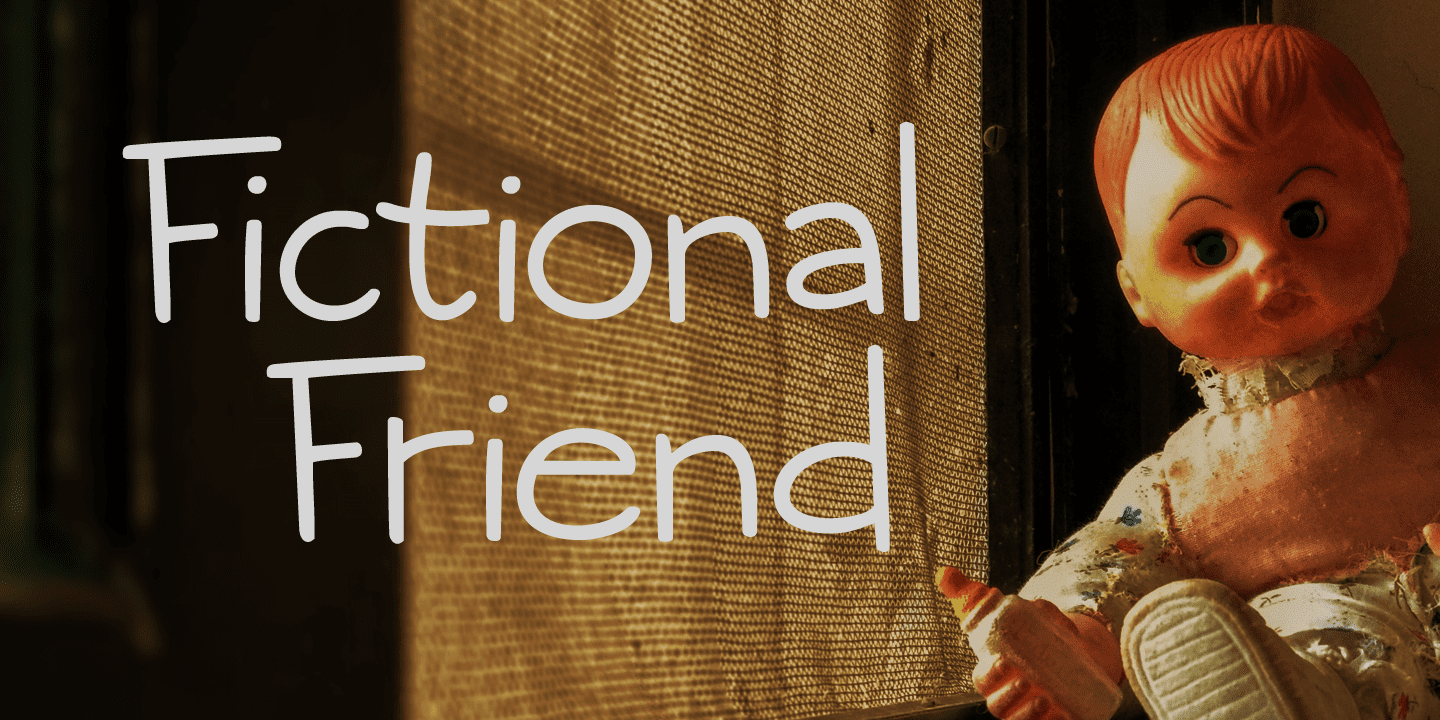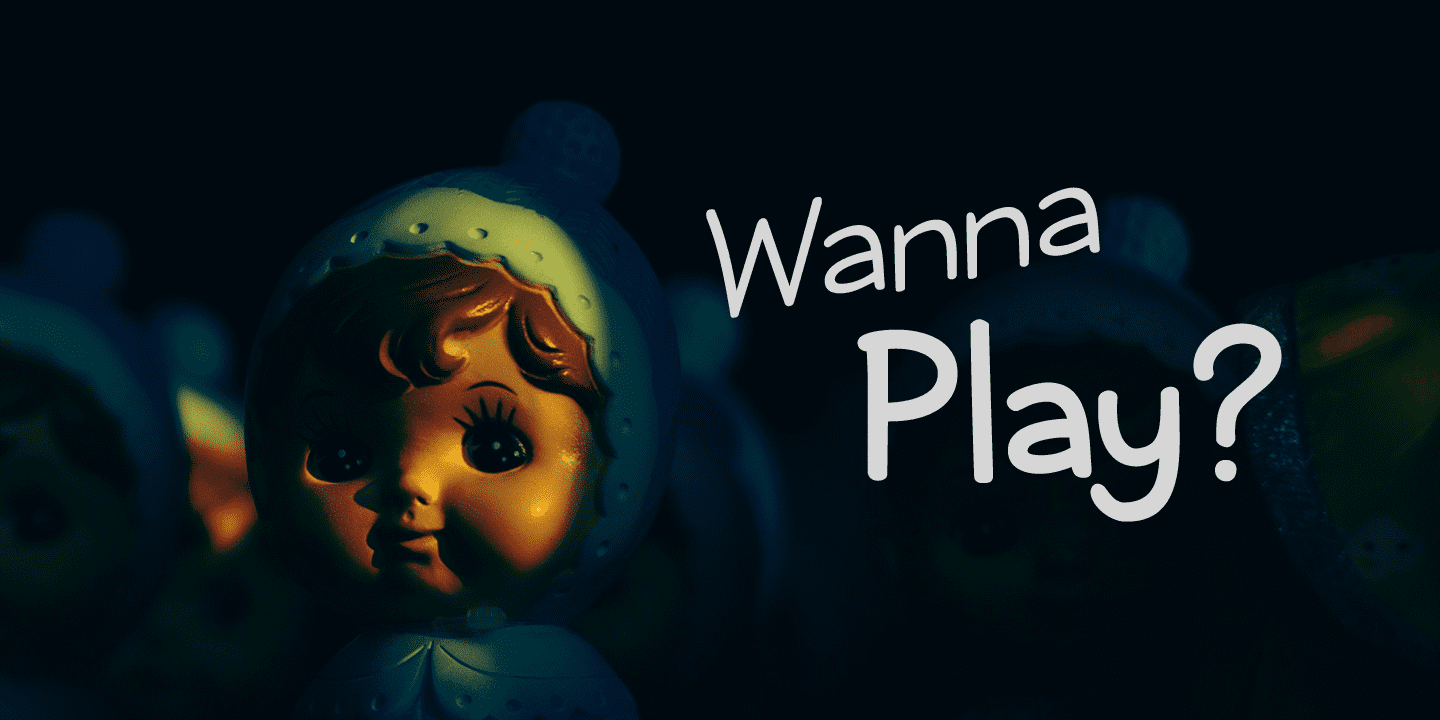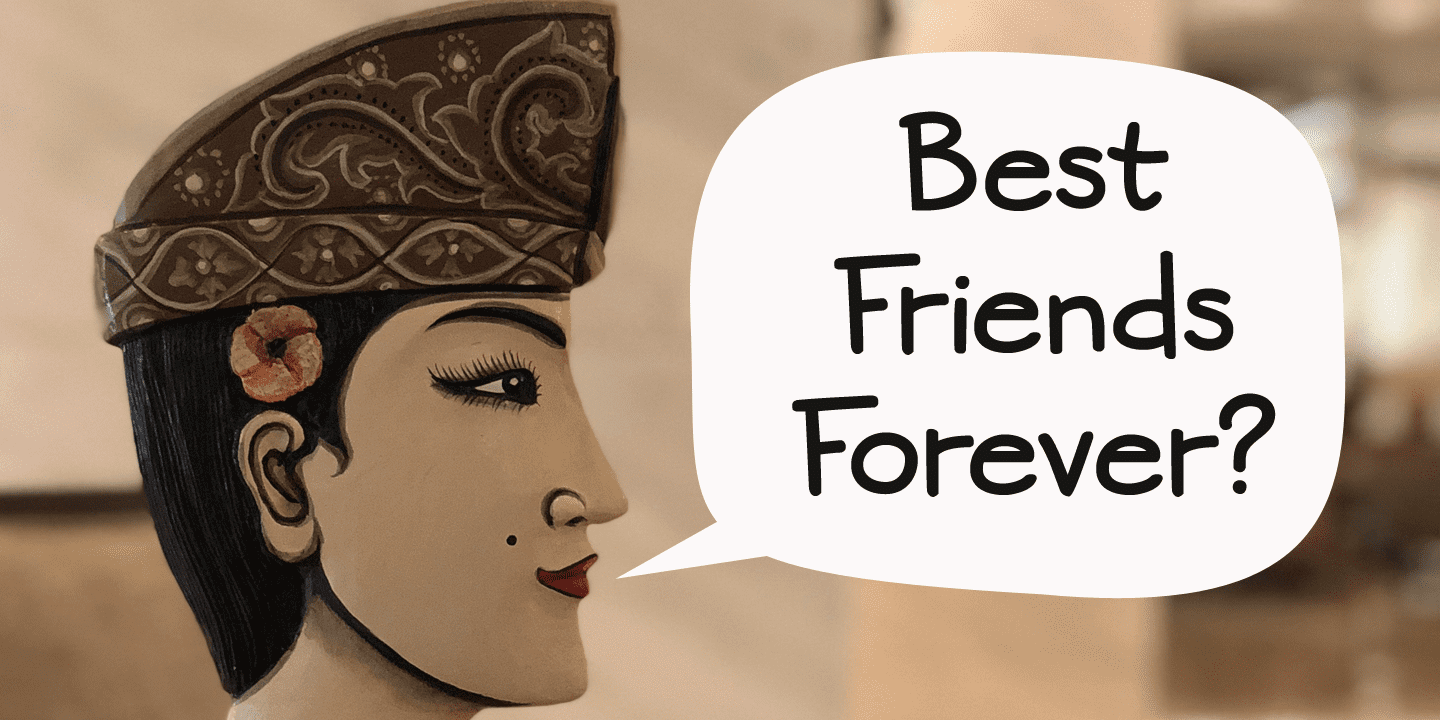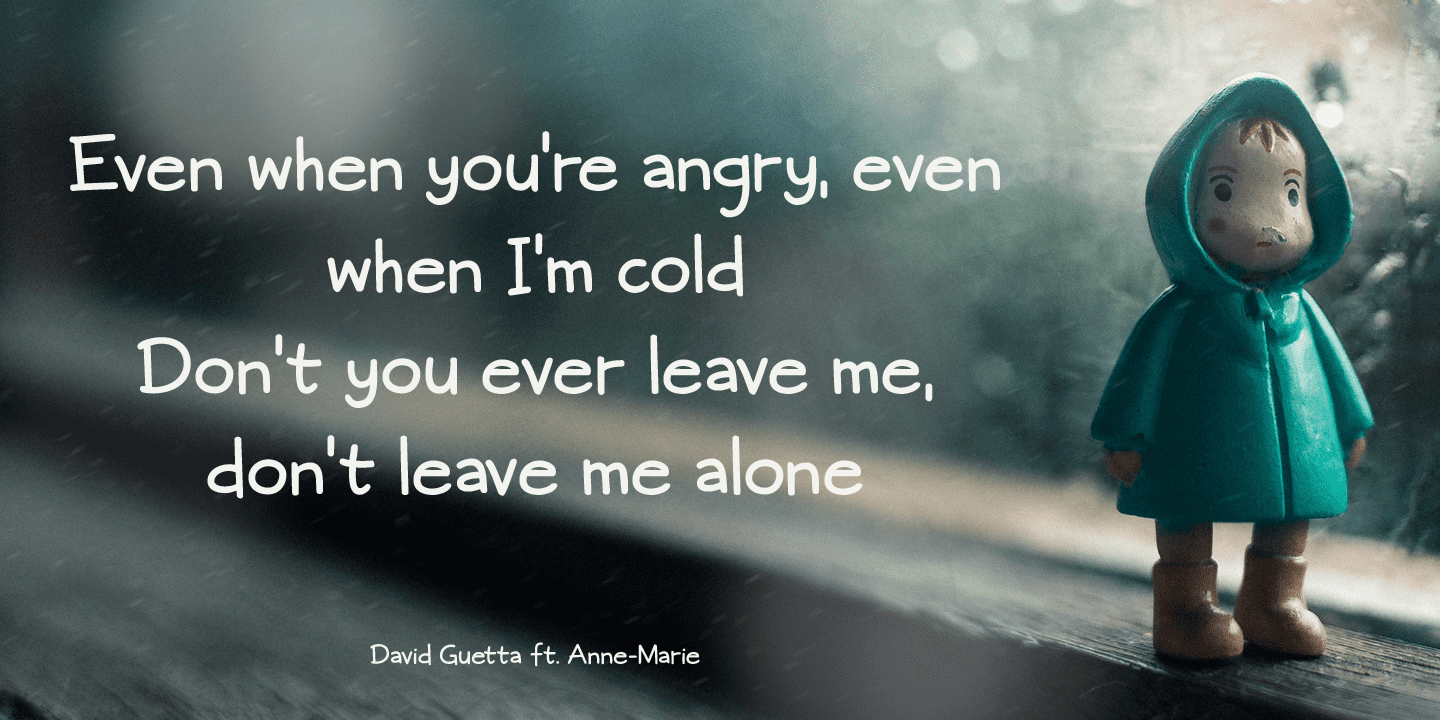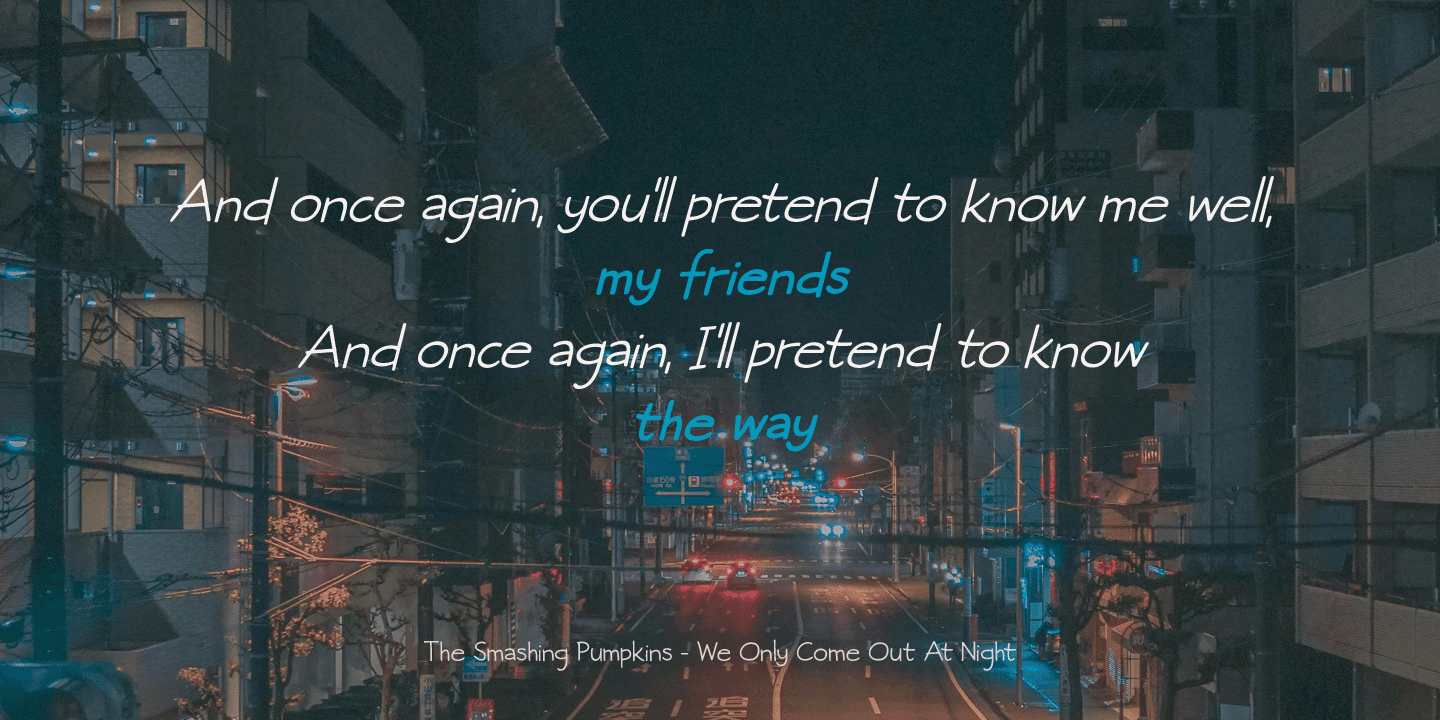
Fictional Friend Family (4 fonts)
Fictional Friend font is a handwritten ‘comic book’ font - sort of. It’s very legible, soft and rounded and comes with all the accents you want!